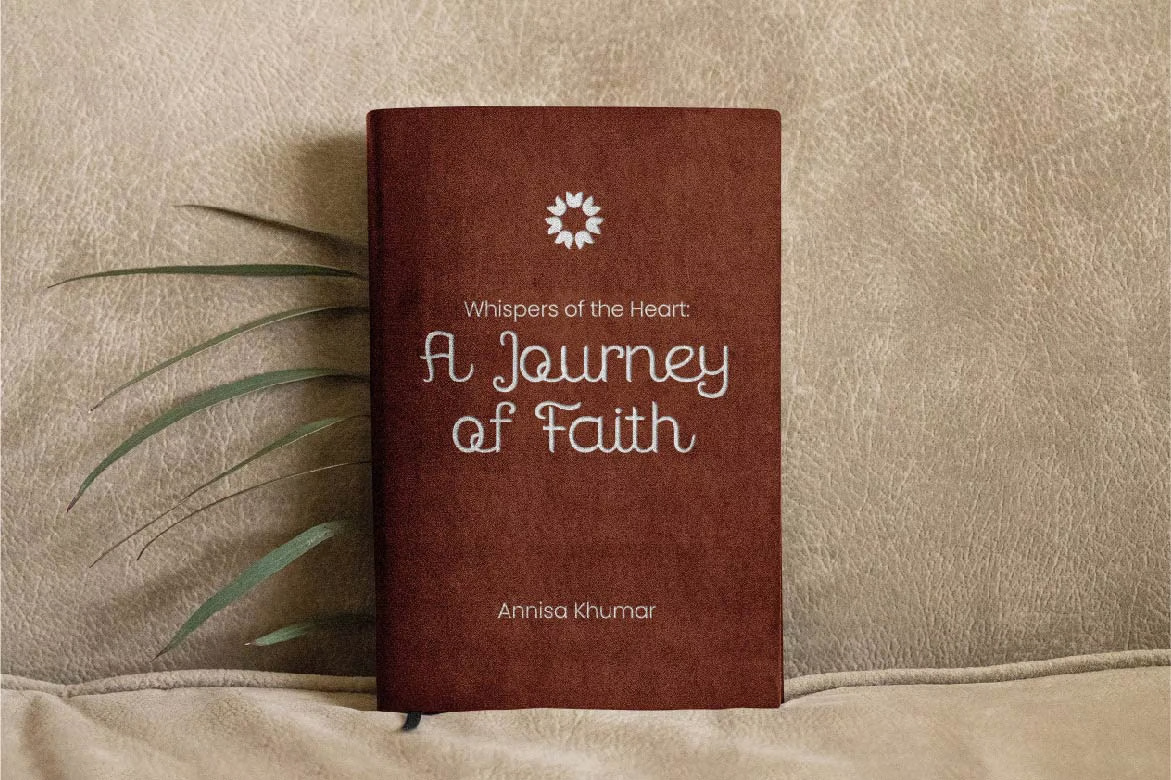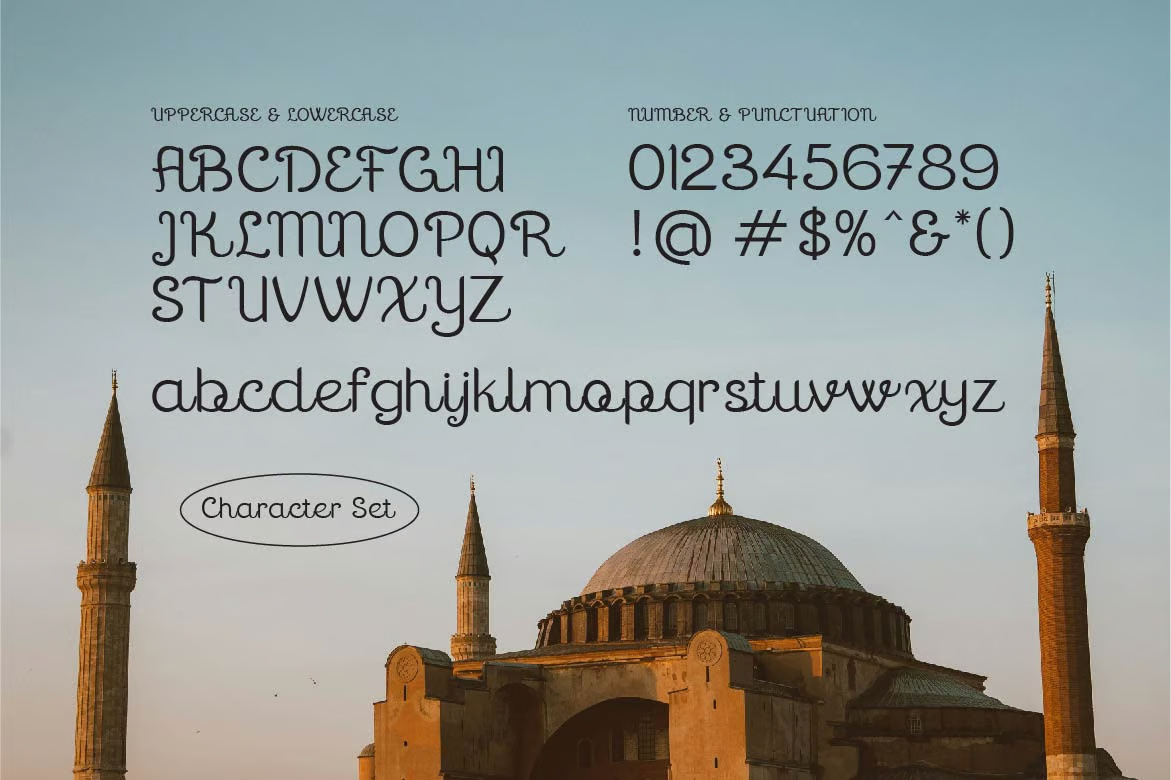
La Qalam Creative Script Font
Elevate your designs with La Qalam Creative Script Font, a stunning modern typeface that blends elegance with a touch of artistic flair. Perfect for adding sophistication to your projects, this font is ideal for quotes, branding, logotypes, invitations, magazine headers, social media graphics, packaging, and more. Its fluid strokes and stylish curves make every word visually captivating, ensuring your text stands out beautifully.
La Qalam Creative Arabic Script Font
La Qalam Creative Script Font